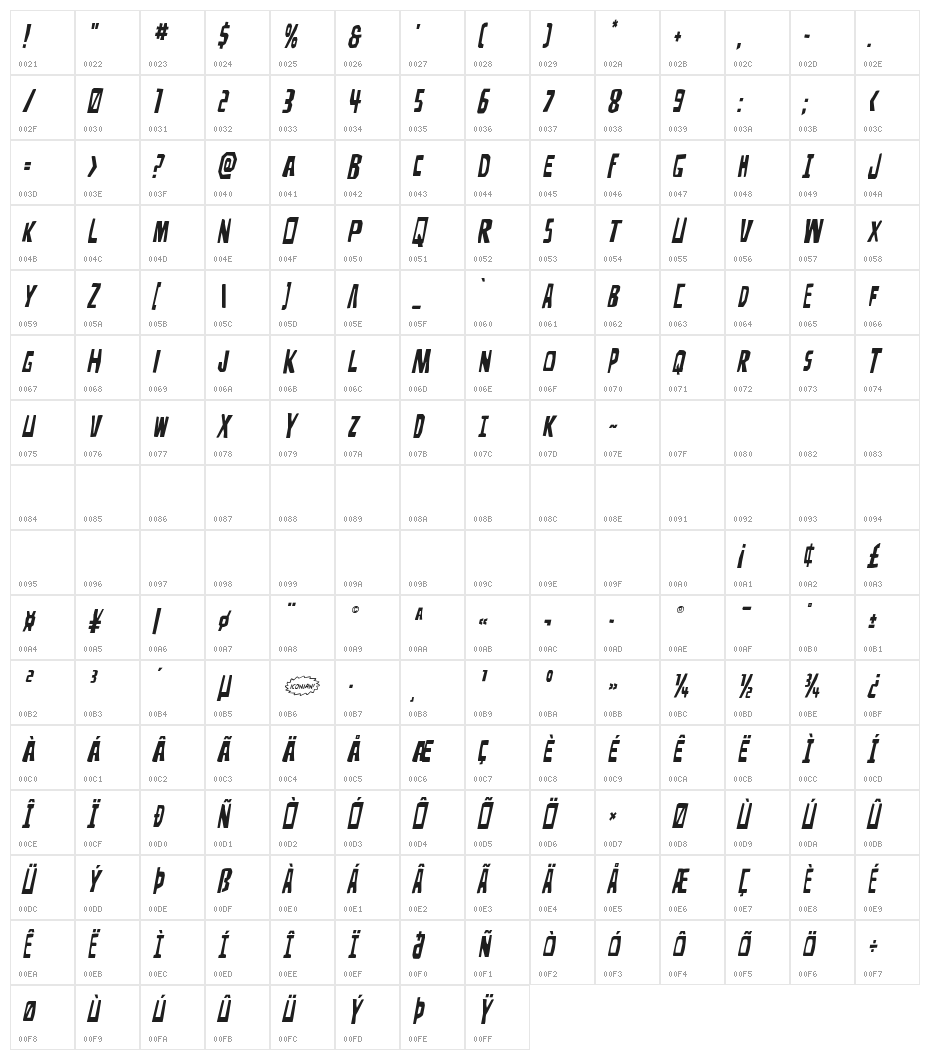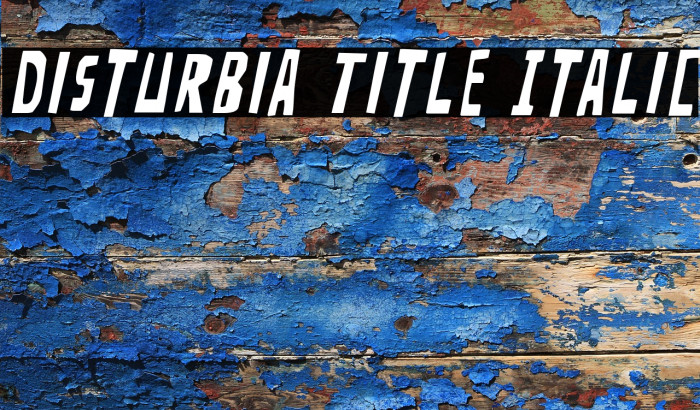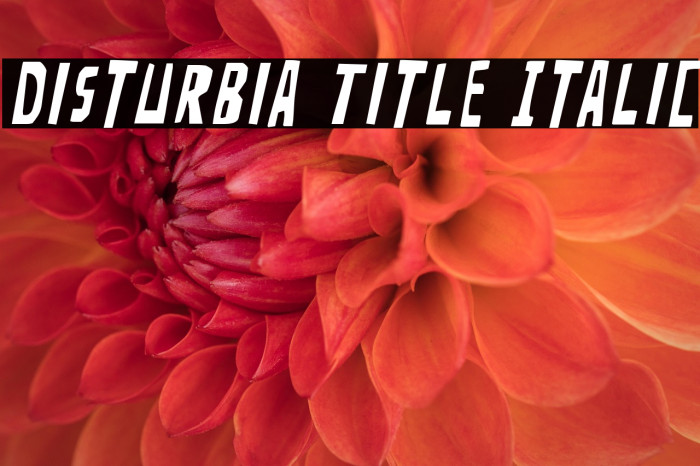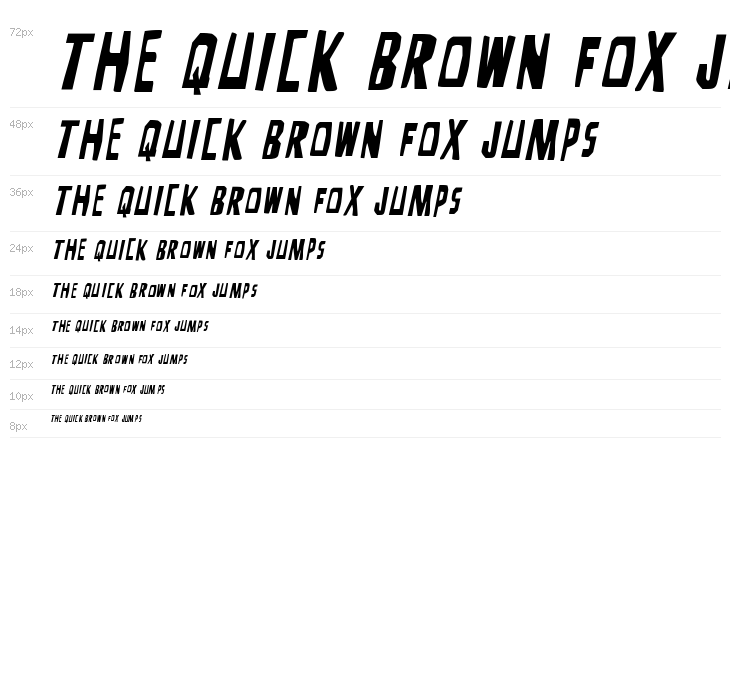
Disturbia Title Italic Font
Disturbia Title Italic Description
This font features a bold and dynamic style with a distinct italic slant, giving it a sense of movement and urgency. The characters are angular and sharp, with a slightly condensed appearance that enhances its modern and edgy aesthetic. The uppercase and lowercase letters maintain a consistent style, while the numerals and special characters complement the overall design. The font's boldness and unique character shapes make it suitable for attention-grabbing headlines and titles.